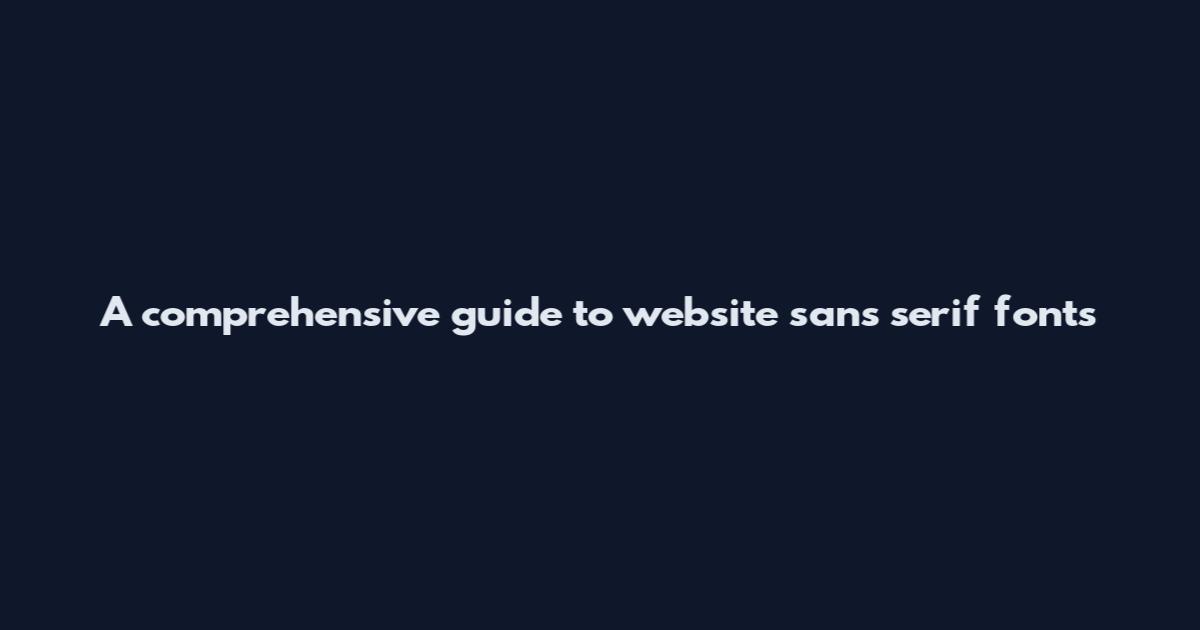
A comprehensive guide to website sans serif fonts
Choosing sans serif typefaces for websites balances readability, brand expression, and technical performance. This guide explains how sans serif fonts work on screen, when they improve accessibility, and how to pair them for durable, modern interfaces. You will find practical rules for line length, spacing, and fallbacks, plus curated font lists for UI, headlines, and long-form body text. The goal is actionable strategy, not trend-chasing, so your typography remains clear and efficient across devices and connection speeds.
What are sans serif fonts and how they behave on screens
Sans serif fonts lack the small strokes called serifs at the ends of letterforms. On screen, simpler structures with open counters and moderate stroke contrast often render more cleanly at small sizes. Human interface design commonly prefers sans faces for UI, navigation, and dense interfaces because they can appear crisper at low resolutions. Yet legibility depends on stroke shape, x-height, spacing, and rendering quality. Understanding these factors helps you decide when a sans serif body improves reading performance versus when a neutral serif or hybrid type system may better serve long reading sessions.
Screen rendering and pixel grid alignment
Digital type interacts with the pixel grid differently across operating systems and devices. Sans type generally adapts well because letter shapes are built from simpler curves and fewer fine details. On Windows, ClearType smoothing shifts perceived stroke weights, while macOS and Linux rendering rely more on grayscale antialiasing. These differences make testing in real browsers and devices essential when specifying sizing, line-height, and fallback stacks.
Accessibility fundamentals for sans serif choices
Accessibility means content remains perceivable and readable for people using assistive technology or in varied lighting conditions. Sans serif faces can support accessibility when they offer open apertures, taller x-heights, and generous spacing. Pair these traits with sufficient color contrast, reasonable line lengths, and responsive font sizing to support low vision and motion preferences.
Readability and legibility factors on the web
Readability on the web depends on typography, layout, and motion comfort, not only the serif or sans label. Sans type can excel for short text chunks and interface elements by reducing visual noise. However, extremely condensed or highly geometric sans faces may slow reading speed for some users. Designers should balance familiarity, character recognition, and spacing to support sustained reading without fatigue.
Practical layout and spacing rules
• Limit line length to roughly 45–75 characters, including spaces.
• Set base font size to at least 16px for body content, with responsive scaling as needed.
• Use line-height between 1.4 and 1.6 for comfortable vertical rhythm.
• Maintain letter-spacing near default values, adding small positive tracking for all caps or condensed interfaces.
• Ensure color contrast ratios meet WCAG guidelines to support diverse abilities.
Web-safe and broadly supported sans serif fonts
Choosing fonts available across common devices reduces layout shifts and network overhead. System UI fallbacks such as -apple-system, BlinkMacSystemFont, and Segoe UI provide consistent appearances without downloads. When custom fonts are required, choose proven families that balance personality and neutrality, and consider variable fonts to reduce file counts. Below is an overview of notable sans fonts, their strengths, and available formats.
Font familyVerified detailSource type
InterDesigned for screens, extensive weight range, variable font availableOpen source via Google Fonts
RobotoNeutral, legible on Android and desktop, multiple widthsOpen source via Google Fonts
Helvetica and Helvetica NeueWidely installed as system fallbacks, stable proportionsSystem/commercial licensing required
San FranciscoApple system UI font, optimized for legibility at small sizesSystem font on Apple platforms
Segoe UIMicrosoft system UI font, readable on Windows surfacesSystem font on Windows
Avenir NextGeometric yet open, popular in digital interfacesCommercial licensing
Open SansHumanist design, broad character set and language supportOpen source via Google Fonts
IBM Plex SansTechnical and editorial families, monospaced companion availableOpen source via IBM
Source SansHumanist style, designed for extended reading on screensOpen source via Adobe
Noto SansLarge multilingual coverage, family designed for neutralityOpen source via Google Fonts
Design systems, pairing, and brand expression with sans serif
Modern interfaces often rely on a type system that mixes a UI-optimized sans for text with a more expressive sans for headings and branding. A compact scale of sizes and weights creates clear information hierarchies without introducing many typefaces. Consistent spacing, responsive font sizes, and restrained use of all caps or condensed widths contribute to long-term coherence. Define rules for links, buttons, captions, and data displays so your interface remains predictable across pages.
Verification, testing, and long-term maintenance
Sans serif type on the web is evergreen when you treat it as a system, not a single choice. Validate legibility on real devices, test with diverse scripts and languages, and monitor performance budgets. Define fallback rules and update strategies so your font stack remains compatible as browsers and system fonts evolve. Document decisions for future teams so typography continues to support clarity, usability, and brand expression.